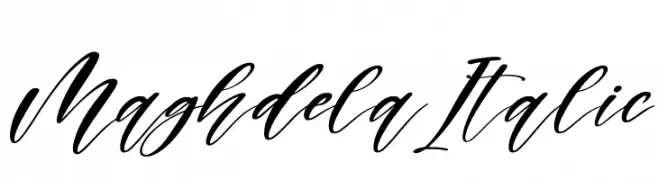
A dynamic and elegant italic script font with flowing cursive letterforms.
A dynamic and fluid script font with elegant, flowing letterforms.
A dynamic, flowing script font with elegant, connected letterforms.
A bold, expressive script font with fluid, dynamic strokes and high contrast.
A bold, handwritten font with a playful and energetic style.
A dynamic and elegant script font with fluid, cursive strokes and an italic slant.
A lively and expressive script font with bold, flowing strokes.
A fluid and elegant script font with dynamic letterforms and moderate stroke contrast.
A dynamic and expressive handwritten font with fluid, flowing letterforms.
An elegant and flowing script font with a sophisticated style.